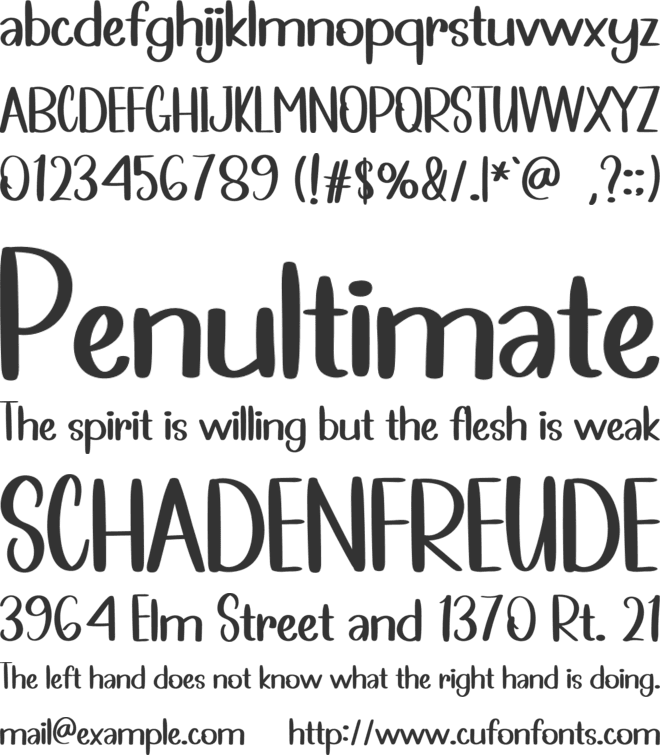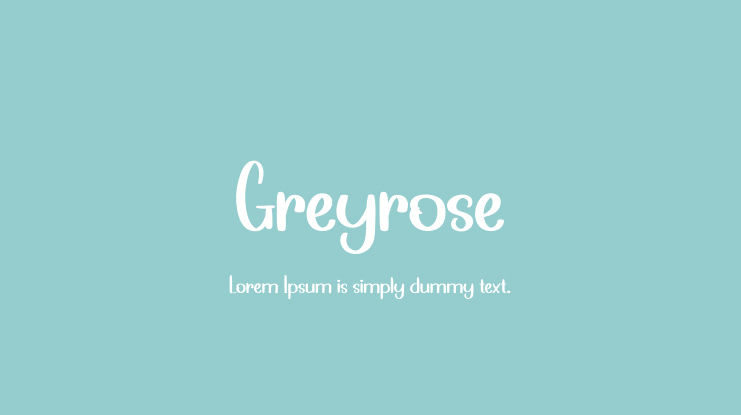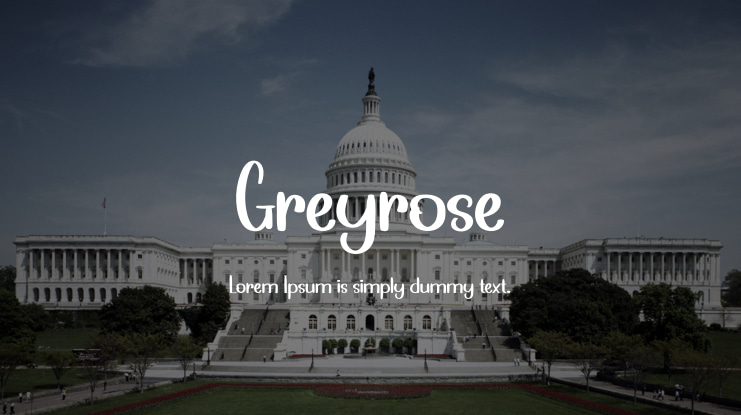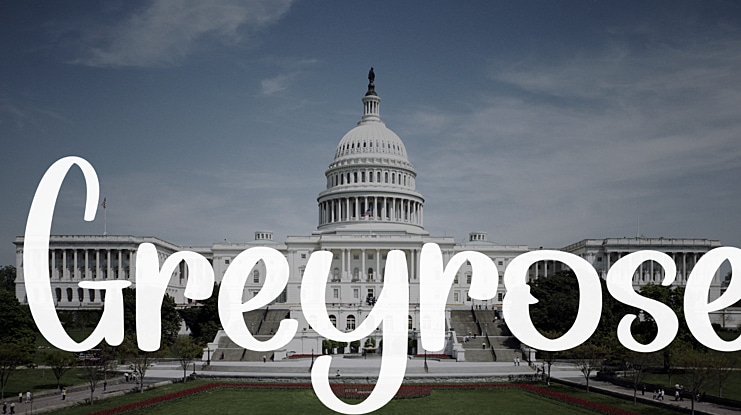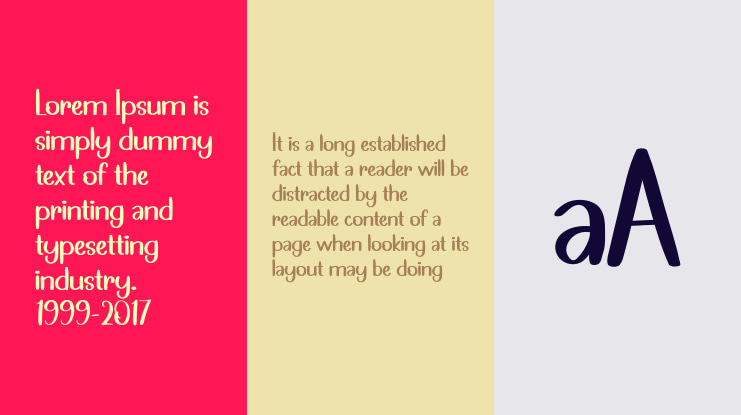
Greyrose Font
Our latest style letters are perfect for a variety of purposes such as wall displays, wedding invitations, social media post logos, advertisements, product packaging, product designs, labels, photography, watermarks, invitations, stationery, and any project that requires elegant handwriting.